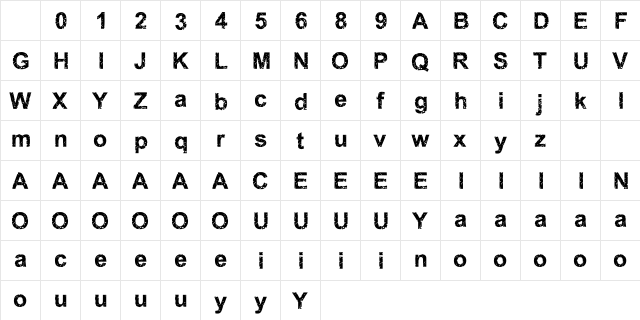
Endless Night is a composed and adaptable typeface that performs quietly and consistently across a wide range of design contexts.
Pro Tip: Use Endless Night in both headline and body roles to test its range before committing to a single application.